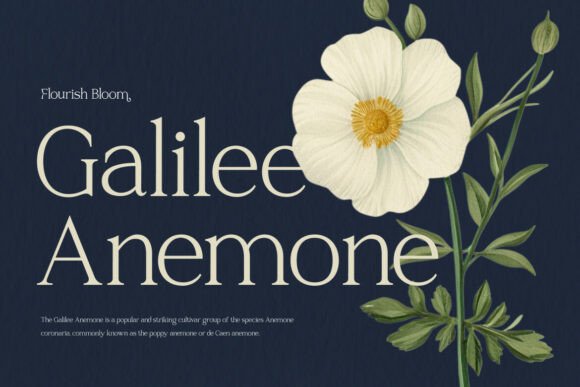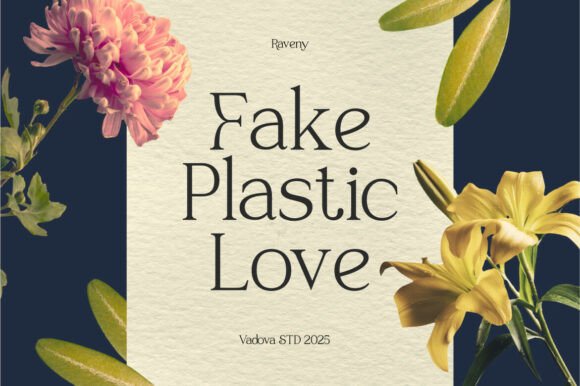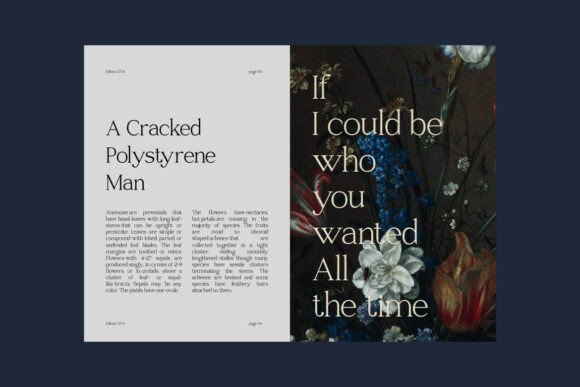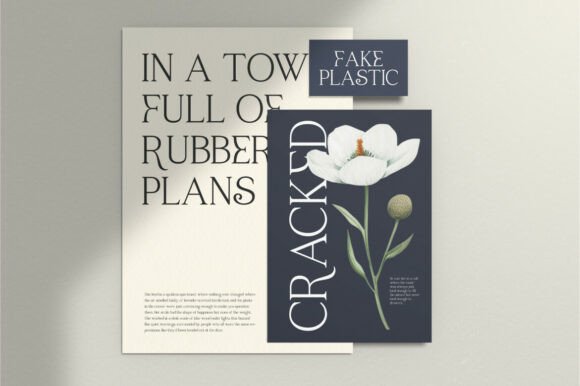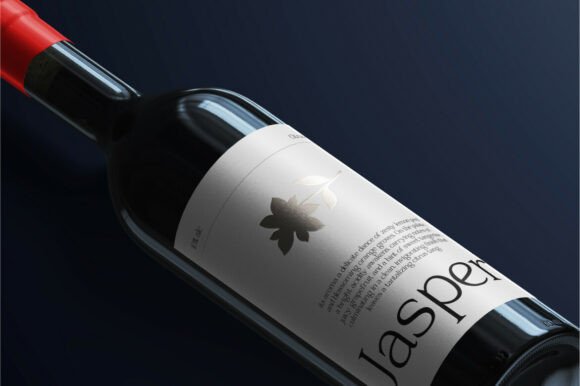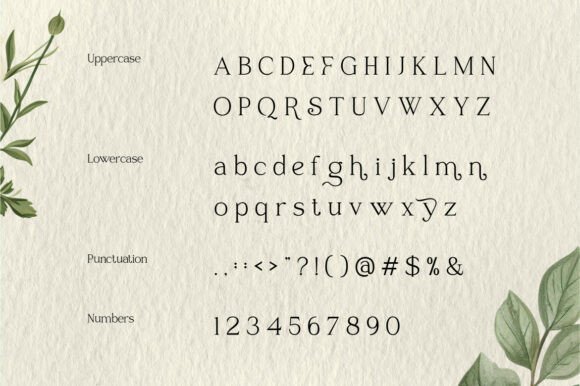
Introduction to Raveny Font Font
Fonts play a crucial role in design, and the Raveny Font font is a typeface that brings both character and versatility to any project. Whether you’re working on a branding project, a website, or a print design, the Raveny Font font offers a unique style that can elevate your work.
Raveny is a refined and elegant serif font designed to bring sophistication to any project.
With its clean lines, high contrast strokes, and luxurious form, itβs ideal for branding, editorials, wedding invitations, and high-end packaging This stylish serif typeface exudes class and clarity, making it perfect for modern creatives and designers who value timeless aesthetics.
The Raveny Font font is more than just a typeface β it’s a design tool that helps you communicate your message with style and clarity. Its unique character set and versatile design make it suitable for a wide range of applications, from elegant invitations to bold headlines.
With its carefully crafted letterforms and balanced proportions, the Raveny Font font ensures readability and visual appeal across all mediums.
The Raveny Font font stands out with its unique design, exceptional readability, and versatility across various design applications.